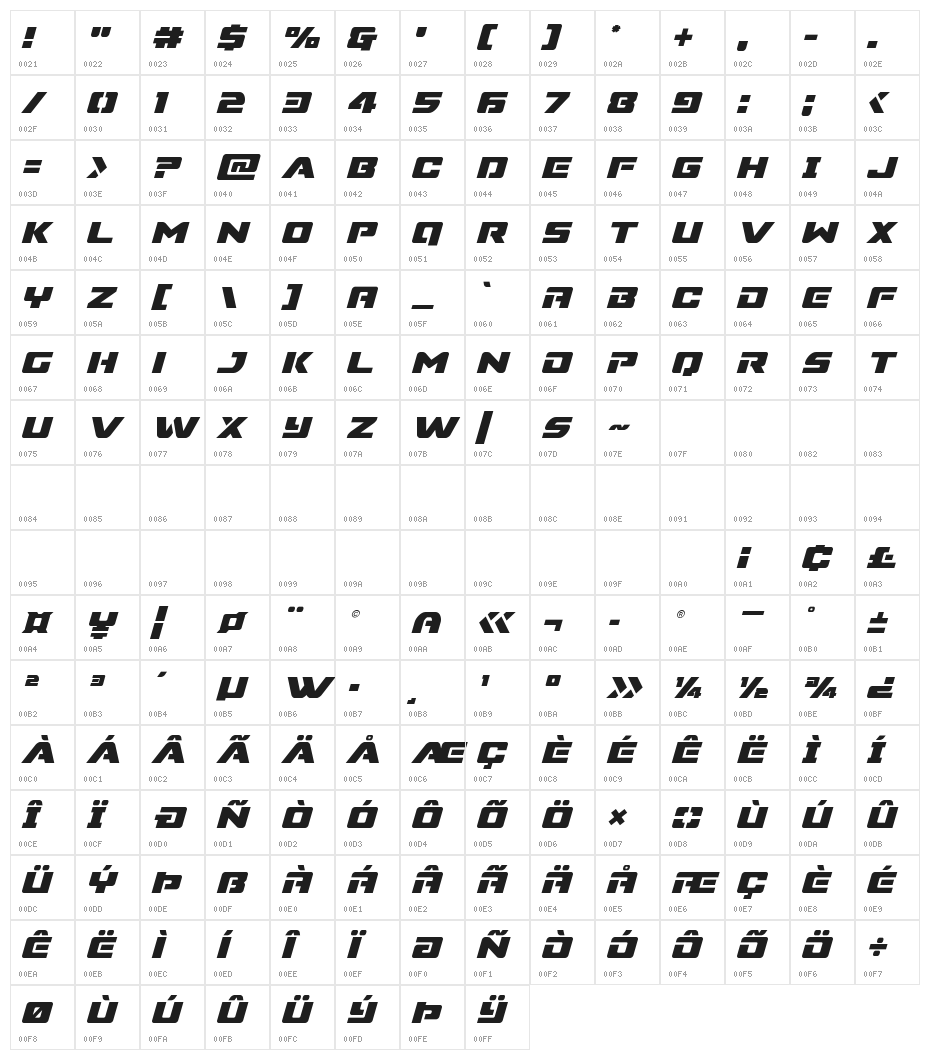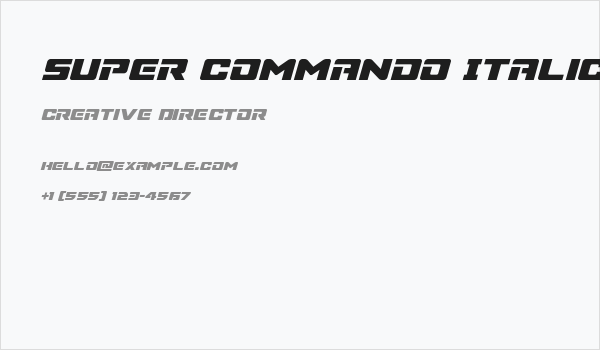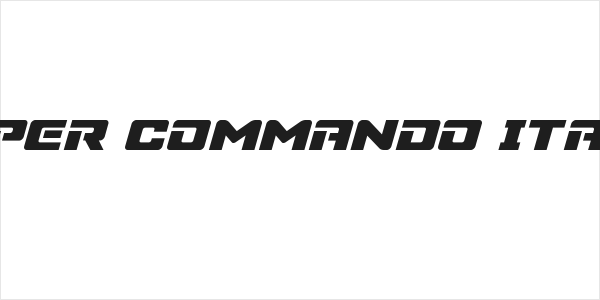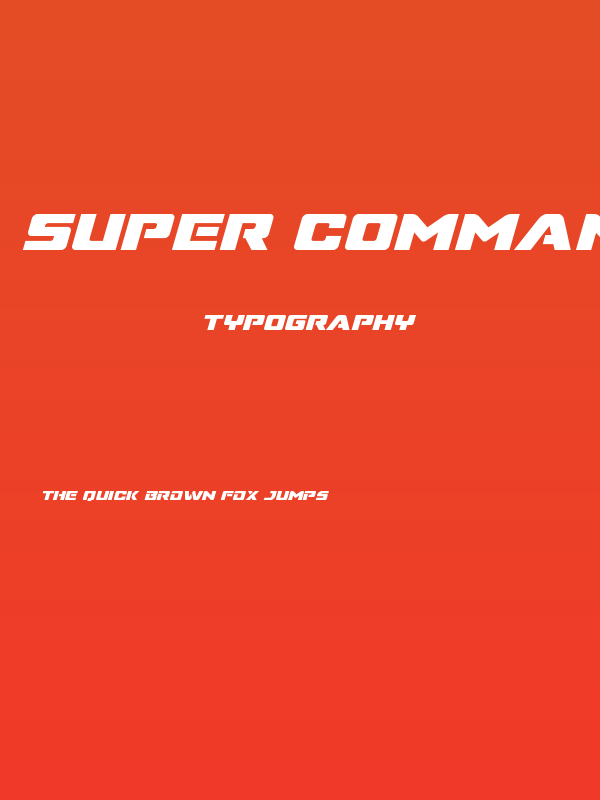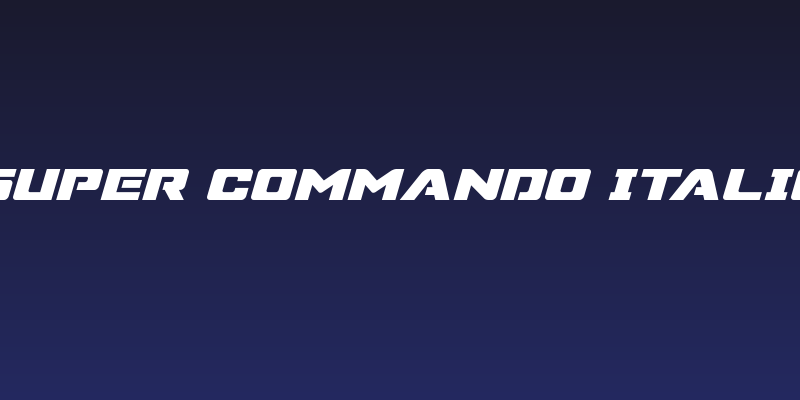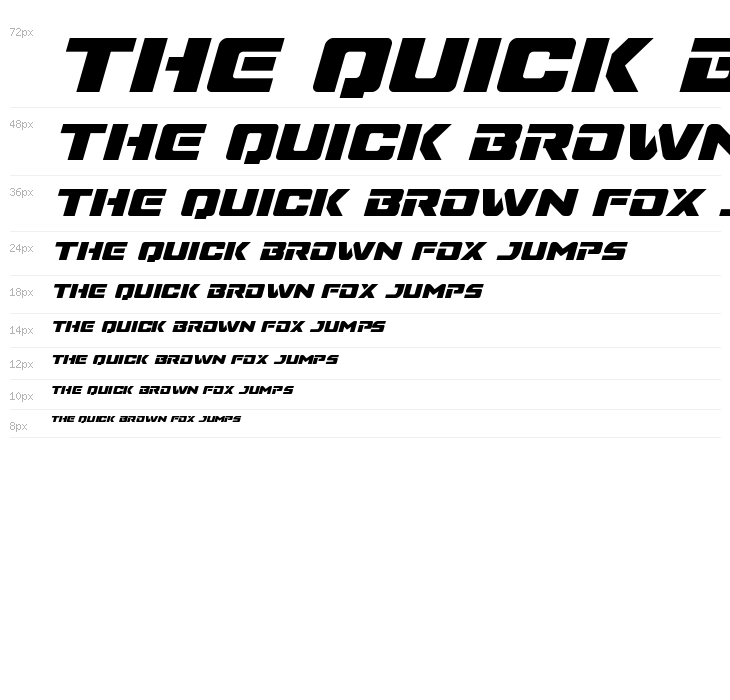
Super Commando Italic Font
Super Commando Italic Description
This font features a bold, italicized style with a futuristic and dynamic appearance. The characters are angular and slightly slanted, giving a sense of motion and speed. The uppercase and lowercase letters maintain a consistent design, with sharp edges and a uniform stroke width. Numbers and special characters follow the same stylistic approach, ensuring a cohesive look across all elements. The font's design is ideal for projects that require a modern and energetic feel, such as sports branding, tech-related graphics, or action-themed posters.
| Proposed Projects | Ideal for sports branding, tech graphics, action-themed posters, and dynamic logos. |